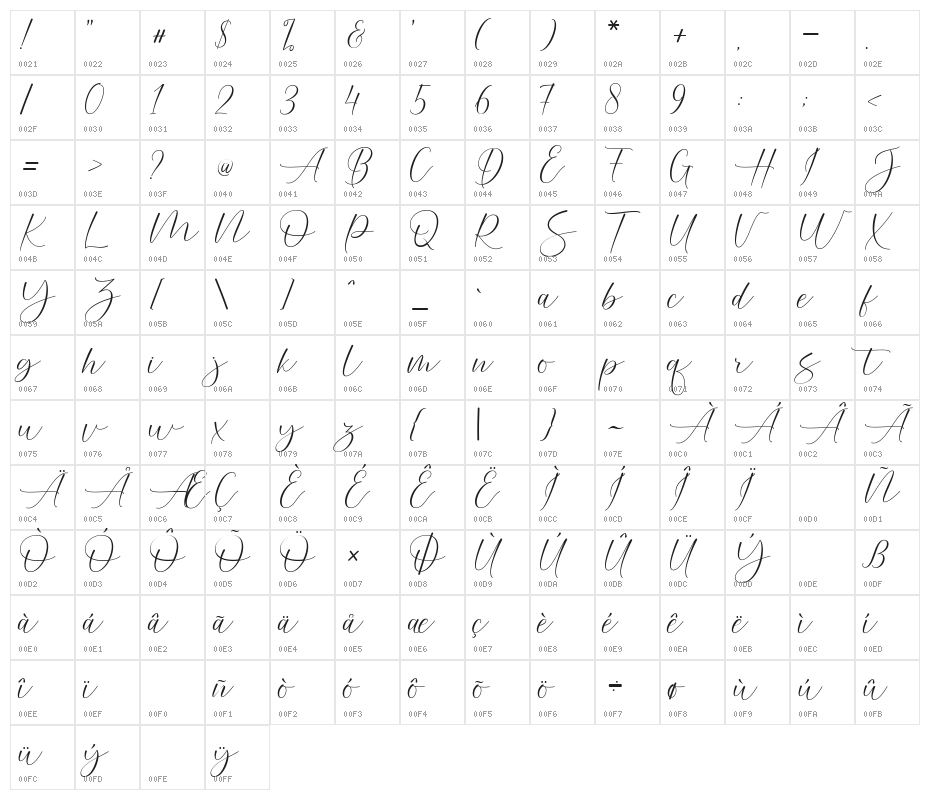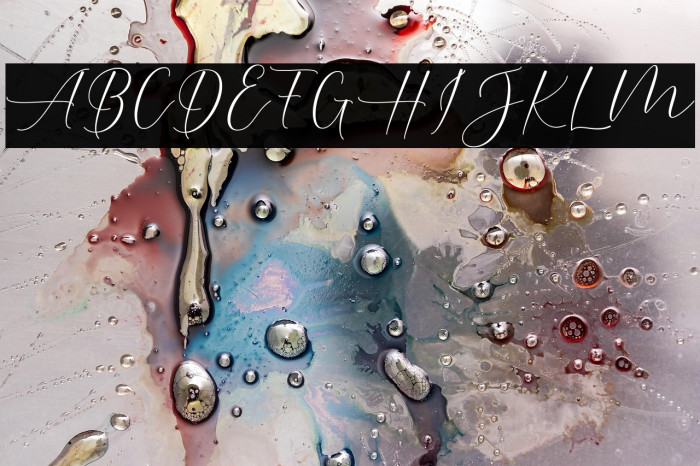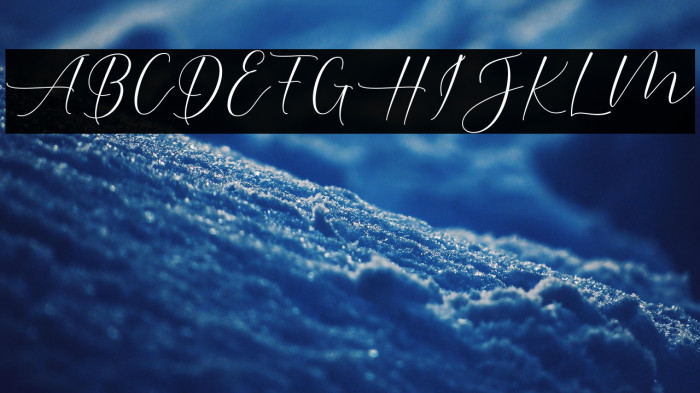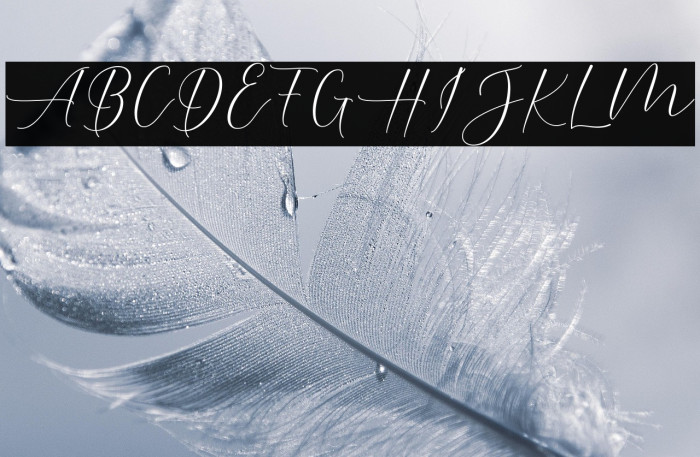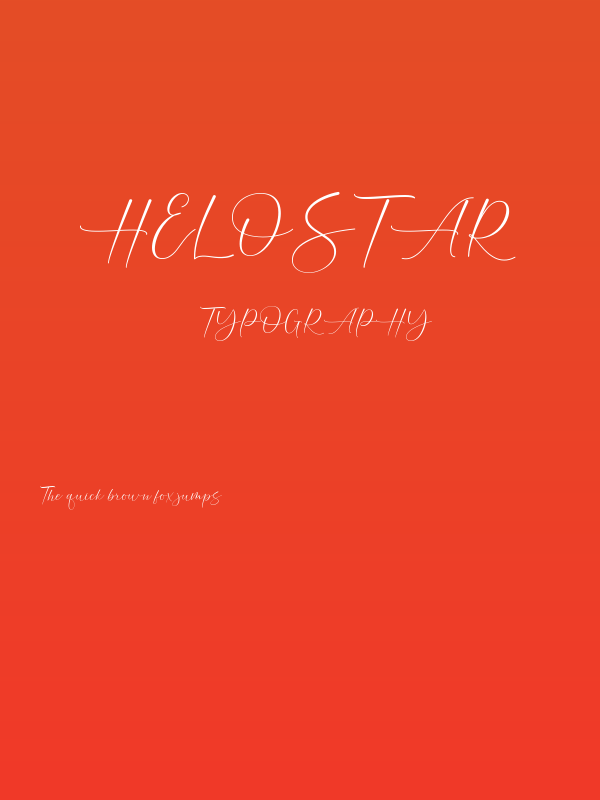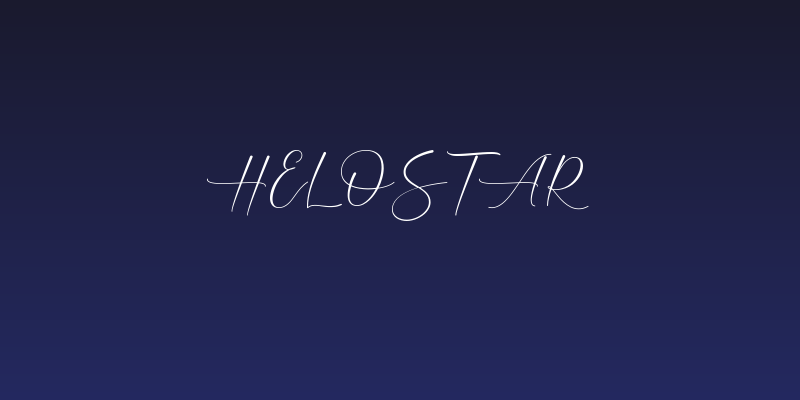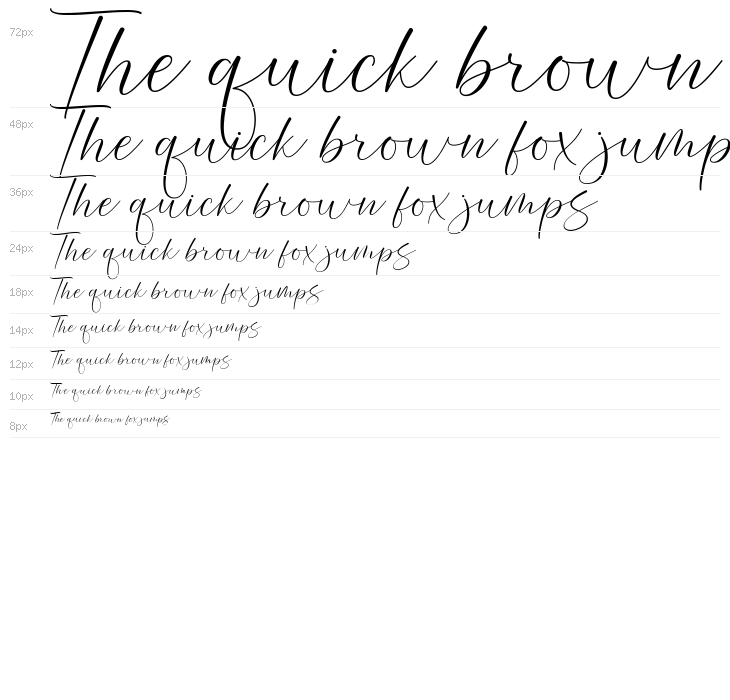
Helostar Font
Helostar Description
This elegant script font features flowing, cursive letters with a refined and sophisticated appearance. The uppercase letters are tall and graceful, with sweeping curves and delicate lines that convey a sense of elegance and fluidity. The lowercase letters maintain a consistent style, with smooth connections and a harmonious flow. The numerals are stylish and complement the overall aesthetic, while the special characters are crafted with the same attention to detail. This font is perfect for projects that require a touch of class and sophistication, such as wedding invitations, formal event programs, or luxury branding.
| Overall Style | Elegant, Sophisticated |
| Use Case | Headlines, Invitations, Branding |
| Proposed Projects | Ideal for wedding invitations, formal event programs, luxury branding, and elegant stationery. |